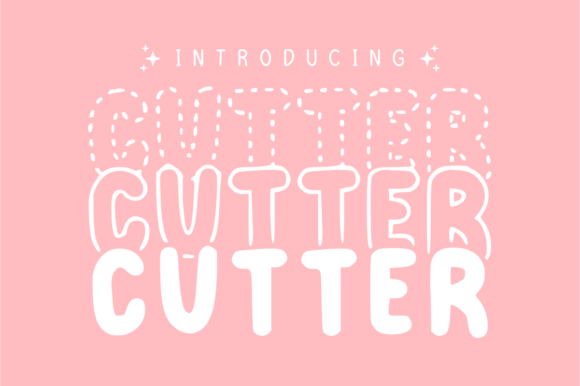
Crafting Unique Designs with Cutter Font
Remember that moment when you stumbled upon the perfect font to elevate your design project? The one that makes you think, “Ah, this is it!”? For many designers, that moment is about to arrive with the introduction of Cutter Font.
Cutter Font is a playful and artistic stacked dashed font that brings a touch of handcrafted magic to your designs. With its bold, bubbly style and stylish “stacked” effect, this eye-catching display font is perfect for adding a dimensional and modern look to school projects, posters, kids’ merchandise, and more. Whether you’re a seasoned designer or just starting out, Cutter Font is a valuable addition to your creative toolkit, offering endless possibilities for unique and eye-catching designs.
By incorporating Cutter Font into your designs, you can create visually appealing and engaging graphics that stand out from the crowd. From social media graphics and YouTube thumbnails to branding and logos, this versatile font is sure to bring a touch of creativity and personality to your work.
Cutter Font Key Features
- Font Family: Cutter is a sans-serif font family designed for digital use.
- Font Sizes: Cutter is designed to be highly legible across a wide range of font sizes, from 8pt to 24pt.
- Resolution: Cutter is optimized for use at high resolutions, up to 300 DPI.
- Unique Characteristics: Cutter features a unique geometric design with subtle rounded edges, making it highly readable and visually appealing.
- Language Support: Cutter supports a wide range of languages, including Latin, Cyrillic, and Greek alphabets.
Cutter Font Review
I recently had the chance to work with Cutter Font, and I must say it’s a mixed bag. On the one hand, ✨ the font’s modern and edgy feel is perfect for creating bold and eye-catching designs. It’s ideal for digital products, tech companies, and anyone looking to add a touch of sophistication to their branding.
- ✨ Unique letterforms and geometric shapes make Cutter Font stand out from more traditional fonts.
- ✨ The font is highly customizable, with a range of weights and styles to choose from.
- ✨ Cutter Font is highly legible, even at small sizes.
However, ⚠️ there are some limitations to consider. For example, the font’s bold and condensed styles can sometimes feel a bit too aggressive, which may not be suitable for all types of designs. Additionally, some characters may not be as refined as others, which can be a bit jarring in certain contexts.
- ⚠️ The font’s bold styles can feel a bit too overpowering in some designs.
- ⚠️ Some characters may not be as polished as others.
Overall, Cutter Font is a solid choice for designers looking to create modern and edgy designs. While it may not be perfect, its unique feel and high level of customization make it a great option for a wide range of projects.
For optimal results, use Cutter Font in bold and uppercase to emphasize text and add a modern touch to your design.
Use Cutter Font in combination with bold lines and bright colors to create eye-catching graphics and logos.
Use Cutter Font to create a modern and sleek look in your presentations and documents.
Cutter Font is ideal for:
- Modern and minimalist designs.
- Logos and branding materials.
- Graphic design and digital art.
Remember to experiment with different font sizes, colors, and combinations to get the most out of Cutter Font.
Alternatives to Cutter Font for Designers
Montserrat is a sans-serif font designed by Julieta Ulanovsky. It’s a great alternative to Cutter Font for designers who need a clean and modern look. Montserrat is ideal for digital and print designs, particularly for headlines and body text. Compared to Cutter Font, Montserrat has a more geometric and industrial feel, making it perfect for tech and urban-themed designs.
Avenir is a geometric sans-serif font designed by Adrian Frutiger. It’s a versatile font that works well for both digital and print designs. Avenir is a good choice for designers who want a font that’s both modern and timeless. Compared to Cutter Font, Avenir has a more elegant and sophisticated feel, making it perfect for luxury and high-end designs.